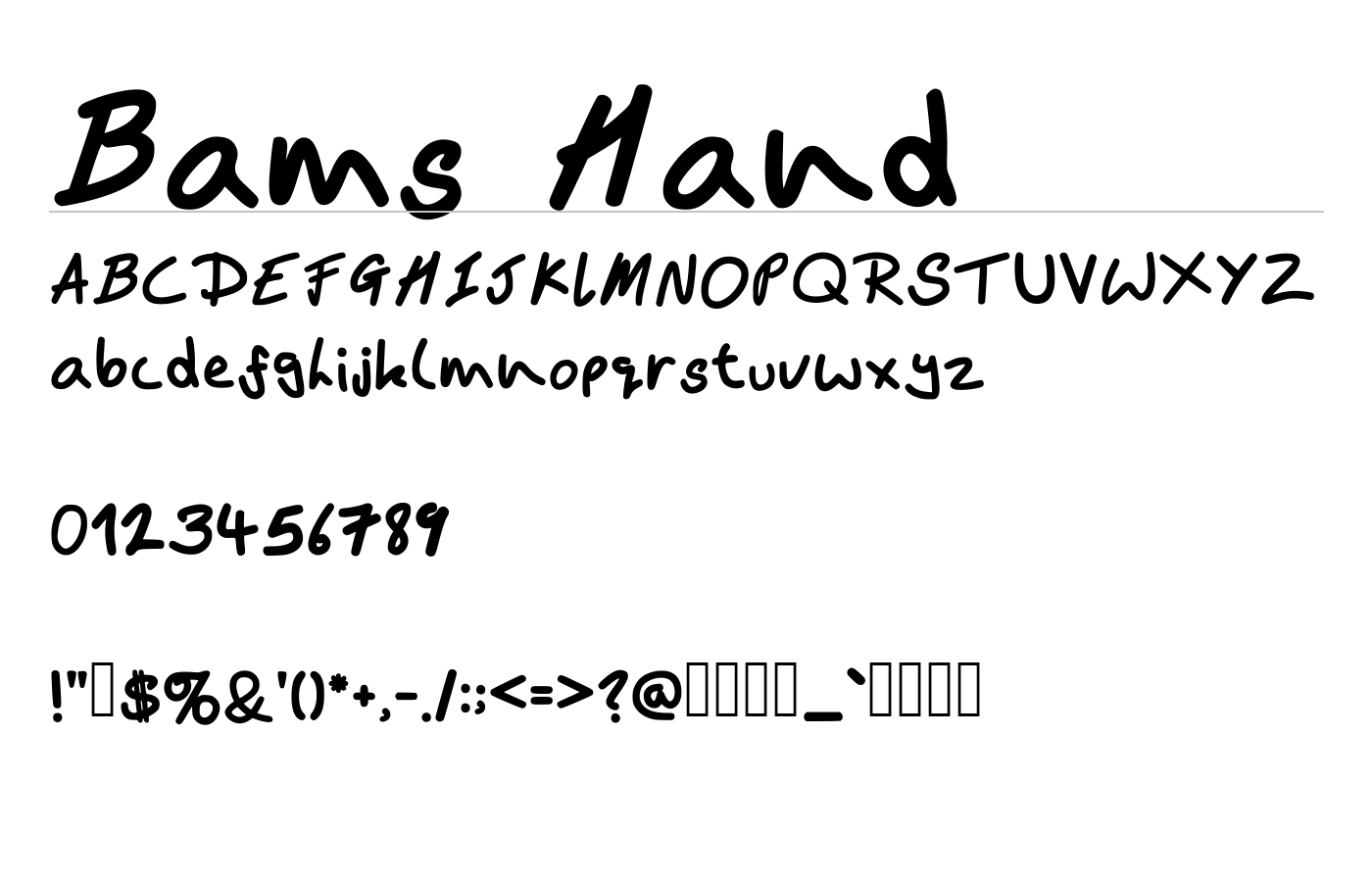
Bams Hand is a casual, handwritten sans serif font that features a friendly, informal style with medium weight and a natural, slightly irregular stroke pattern, mimicking authentic penmanship. Its rounded, playful letterforms and generous spacing give it an approachable, personal feel, making it perfect for creative projects, casual branding, and settings where a warm, human touch is desired. This font works well in invitations, posters, and playful logos where a natural, relaxed vibe is key.
Bams Hand Font
About Bams Hand Font